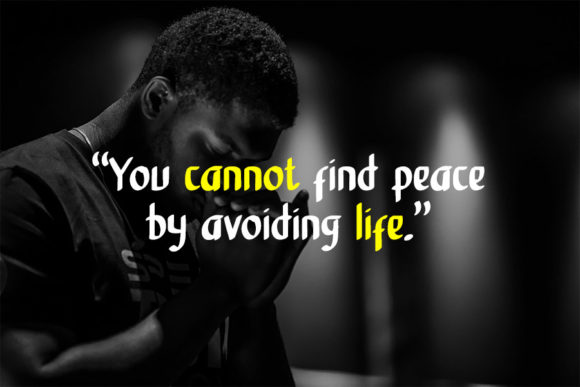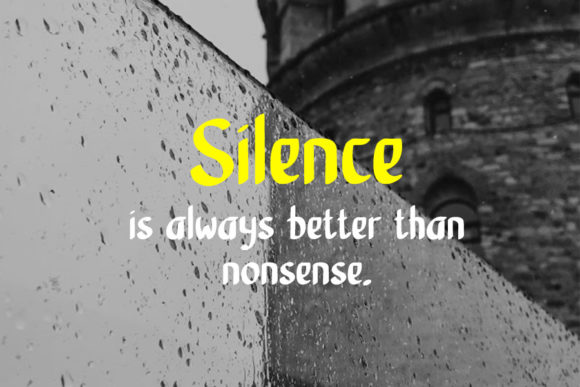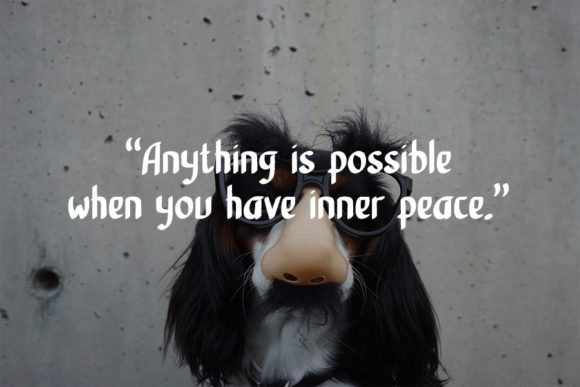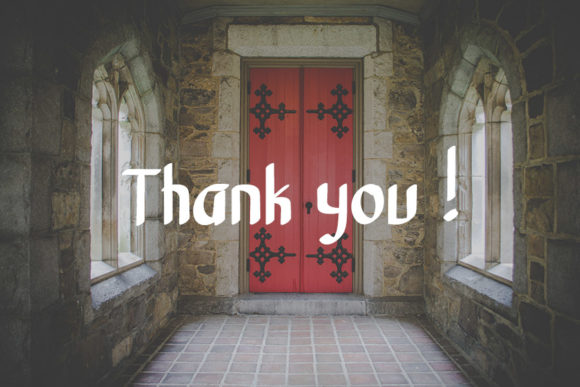
Abstain Font
About Abstain Font
Abstain is a bold and simple handwritten font. Clean and a little bit quirky, this font is the perfect fit for all of your logos, branding, social media, and crafty DIY projects.